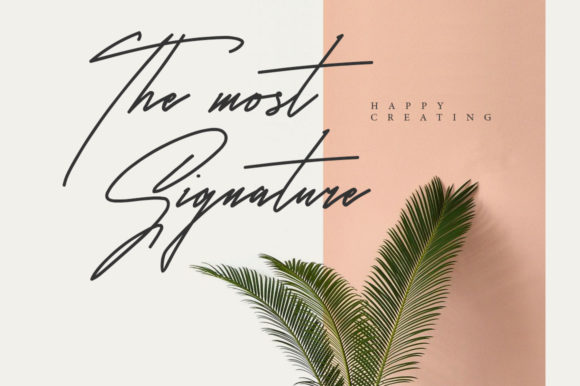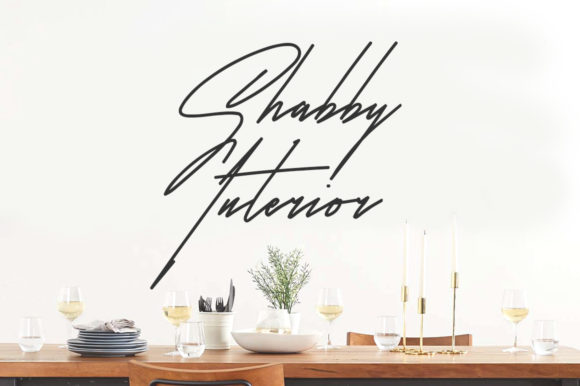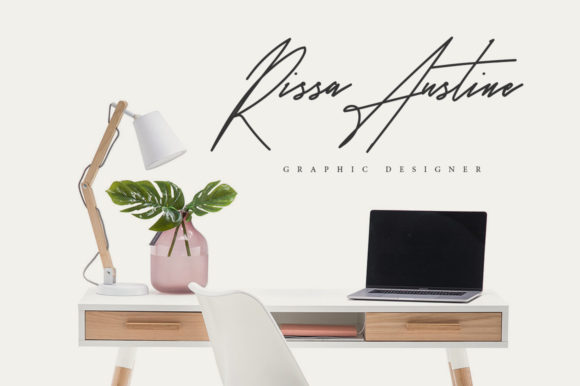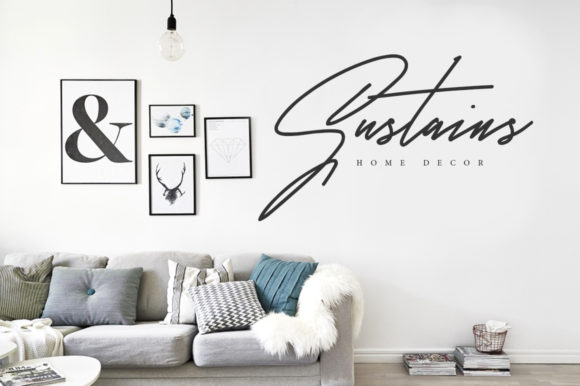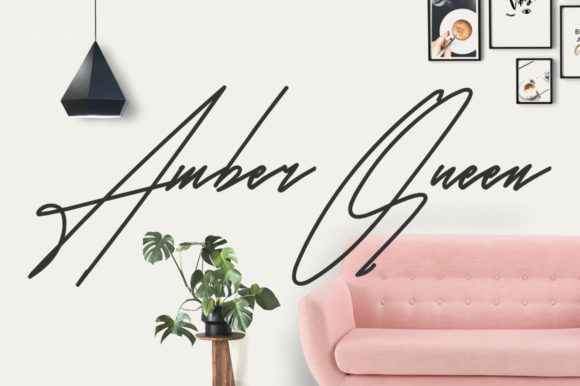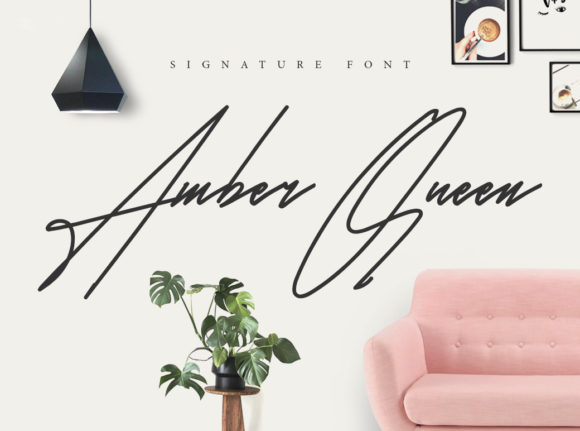
Introducing Amber Queen Font: The Regal Script Font for Modern Design
Are you searching for a font that exudes elegance, sophistication, and a touch of modern flair? Look no further than Amber Queen Font, the queen of script fonts! This stunning typeface seamlessly blends classic calligraphic influences with a contemporary twist, making it perfect for a wide range of design applications.
The Royal Treatment: What Makes Amber Queen Font Stand Out
Amber Queen Font is a masterclass in script font design. Its flowing lines, delicate curves, and precise lettering create a sense of luxury and refinement. This font is not just a collection of letters; it’s an experience. The moment you lay eyes on Amber Queen, you’ll be captivated by its:
• Classy calligraphic influences: Inspired by traditional calligraphy, Amber Queen’s strokes are fluid and dynamic, evoking the feeling of handwritten script.
• Contemporary freshness: Despite its classic roots, Amber Queen Font feels refreshingly modern, making it perfect for designers looking to create something new and exciting.
• Elegant letterforms: Each letter is carefully crafted to ensure a harmonious flow, creating a beautiful visual rhythm that’s both soothing and engaging.
Endless Design Possibilities with Amber Queen Font
Amber Queen Font is incredibly versatile, making it suitable for a wide range of design projects. Here are just a few ideas to get you started:
• Logos and branding: Create a lasting impression with a custom logo that showcases your brand’s personality and style.
• Book covers and publishing: Add a touch of sophistication to your book covers, journals, or magazines with Amber Queen’s elegant script.
• Packaging and product design: Elevate your product packaging with a font that’s both luxurious and eye-catching.
• Stationery and invitations: Make a statement with custom stationery, wedding invitations, or greeting cards that feature Amber Queen’s beautiful script.
Why Designers and Crafters Love Amber Queen Font
Amber Queen Font has quickly become a favorite among designers and crafters for several reasons:
• Easy to read and use: Despite its ornate appearance, Amber Queen Font is surprisingly legible, making it perfect for body text or headlines.
• Customizable: Experiment with different colors, textures, and effects to make Amber Queen Font truly your own.
• Time-saving: With Amber Queen Font, you can create stunning designs in a fraction of the time it would take with other fonts.
Tips and Tricks for Getting the Most Out of Amber Queen Font
To unlock the full potential of Amber Queen Font, try these expert tips:
• Pair with contrasting fonts: Combine Amber Queen Font with a clean sans-serif font to create visual interest and hierarchy.
• Experiment with colors: Try pairing Amber Queen Font with bold, bright colors or soft pastels to create a unique look.
• Pay attention to spacing: Make sure to adjust the tracking and kerning to ensure that your text looks polished and refined.
Amber Queen Font is a true gem in the world of script fonts. Its perfect blend of classic elegance and modern flair makes it an essential tool for designers and crafters looking to create stunning visual content. Whether you’re working on a logo, book cover, or packaging design, Amber Queen Font is sure to impress. So why wait? Discover the royal treatment for yourself and experience the magic of Amber Queen Font.